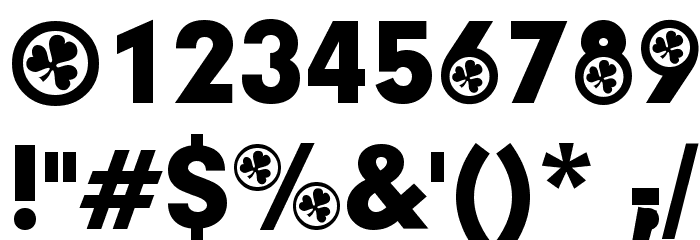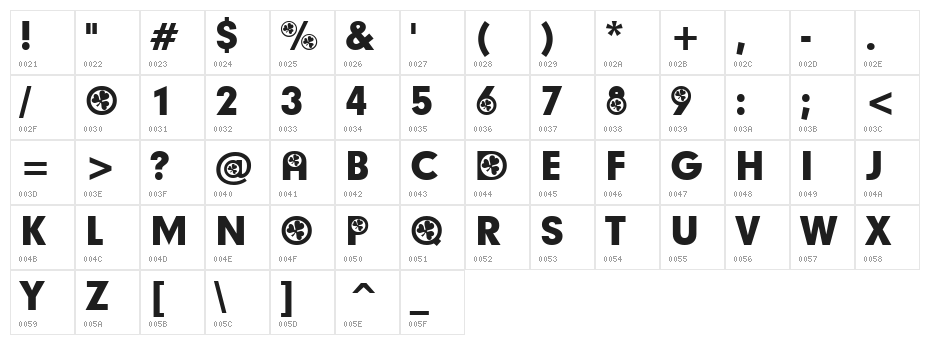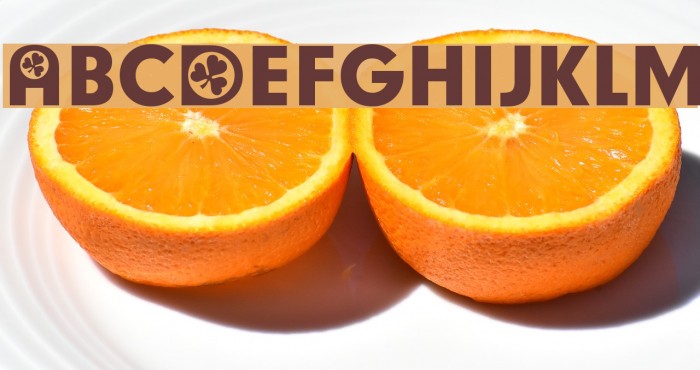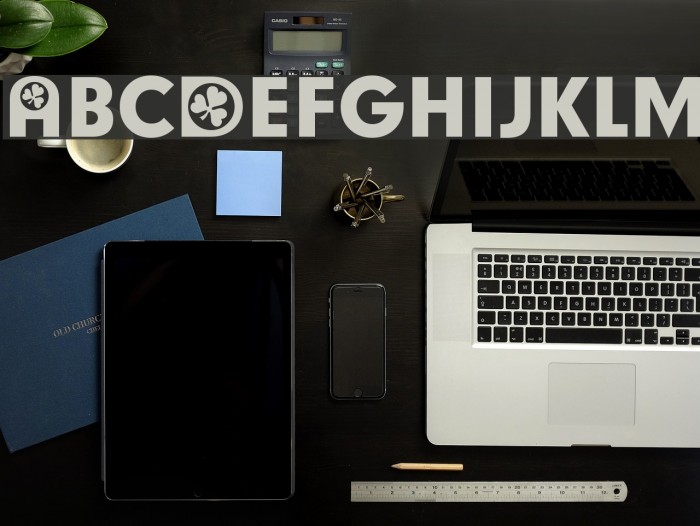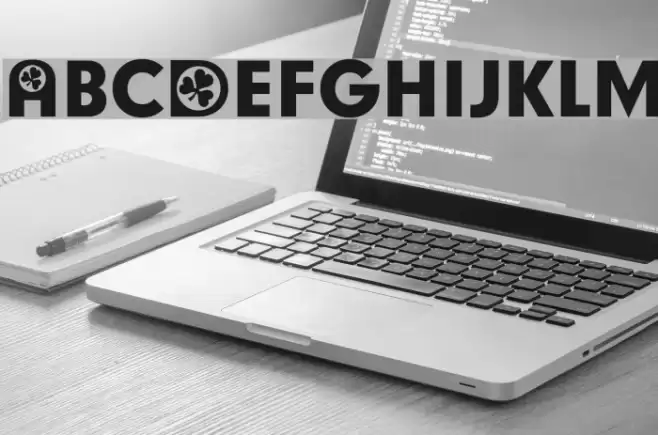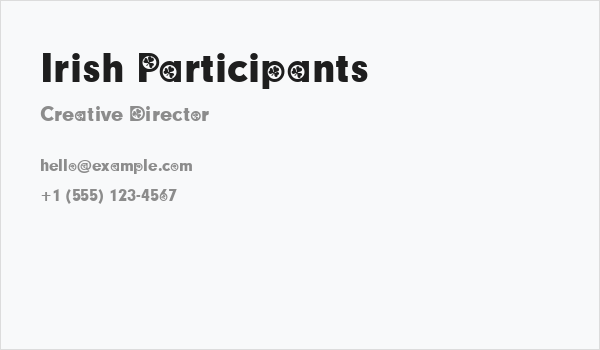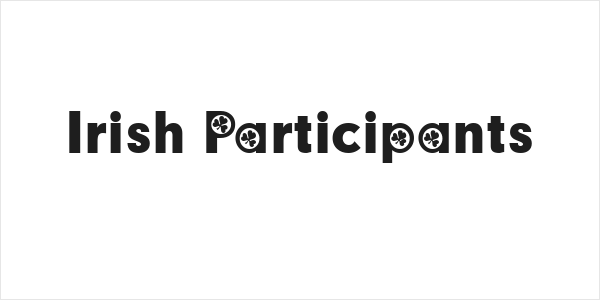
Irish Participants Font
Irish Participants Description
This font features a bold and playful design with a unique twist. Each character incorporates a shamrock symbol, adding a distinct Irish flair. The letters are thick and rounded, making them highly legible and impactful. The use of the shamrock within the characters gives it a decorative and thematic appearance, perfect for festive or themed projects. The numbers and special characters maintain the same bold style, ensuring consistency across all elements. This font is ideal for creating eye-catching headlines, posters, and branding materials that require a touch of whimsy and cultural reference.
| Proposed Projects | Ideal for St. Patrick's Day promotions, Irish-themed events, festive posters, and branding. |